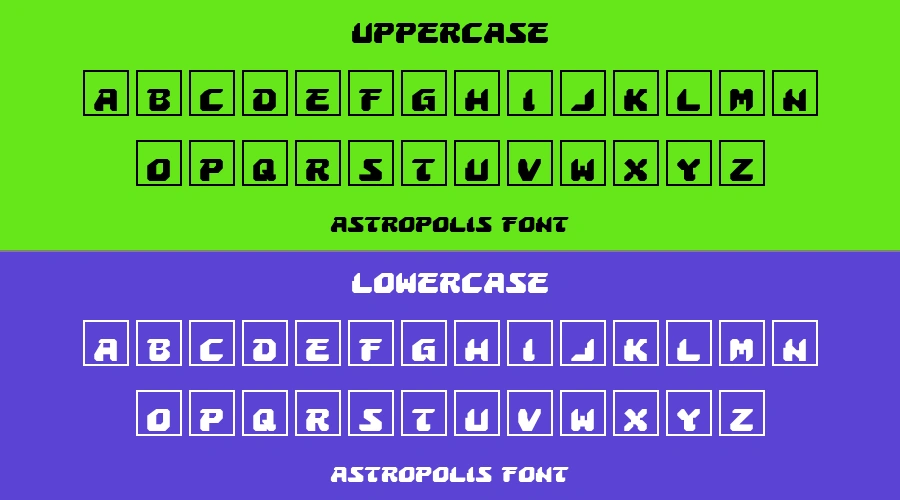
About Astropolis Font
Designed with precision, Astropolis Font merges open counters with operational efficiency in every character. This versatility makes it particularly effective for event branding, where flexibility and creative impact directly impact communication quality. Each letterform demonstrates meticulous craftsmanship.
Technical excellence shines through elements like monoline strokes and currency signs, enhancing typographic versatility. In editorial spreads settings, Astropolis Font proves its worth through superior multi-language support. The thoughtful execution of character width and user perception ensures professional results.